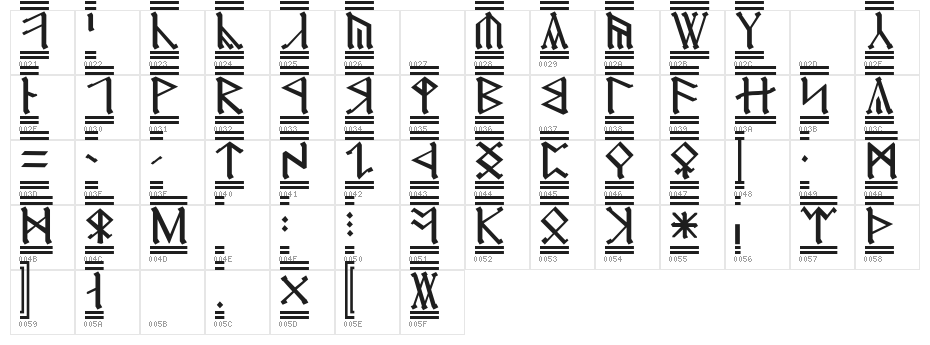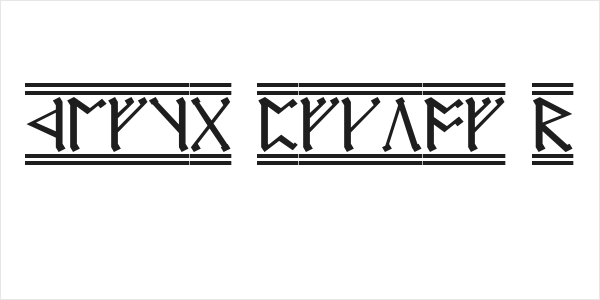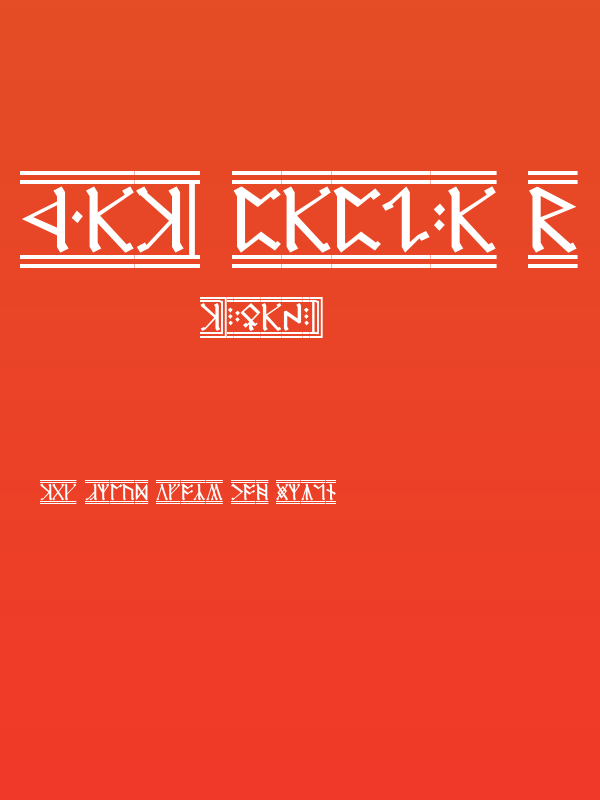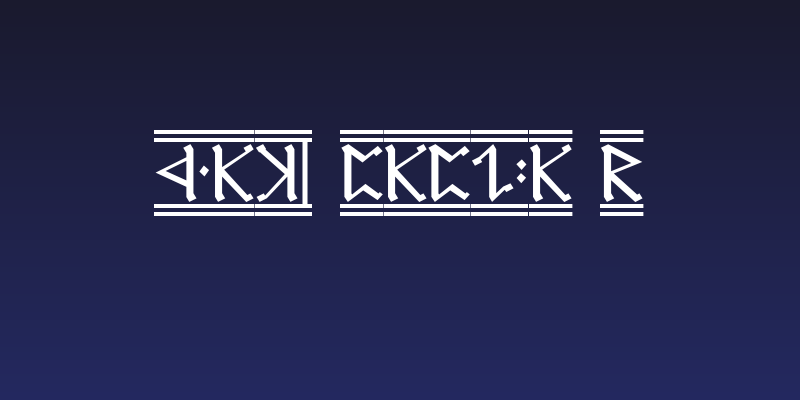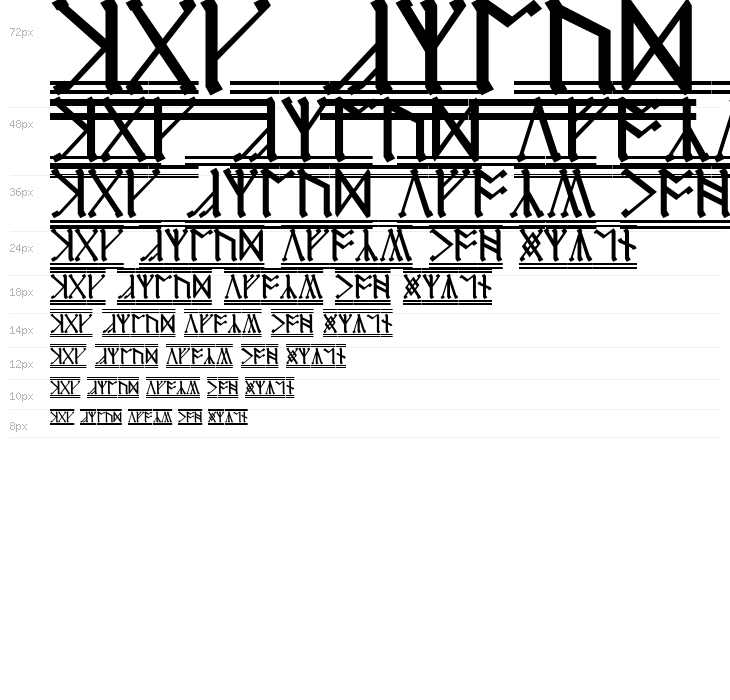
Cirth Erebor 2 Font
Cirth Erebor 2 Description
This font is a decorative script inspired by ancient runic alphabets, featuring angular and geometric shapes that evoke a sense of mystery and antiquity. The characters are bold and striking, with a consistent thickness throughout, giving them a strong presence on the page. The design incorporates sharp angles and straight lines, creating a structured and organized appearance. The spacing between characters is tight, enhancing the compact and cohesive look of the text. This font is ideal for projects that require a historical or fantasy theme, as it captures the essence of ancient scripts while maintaining legibility.
| Use Case | Logos, Titles, Themed Events |
| Proposed Projects | Ideal for fantasy-themed designs, game interfaces, book covers, and historical recreations. |